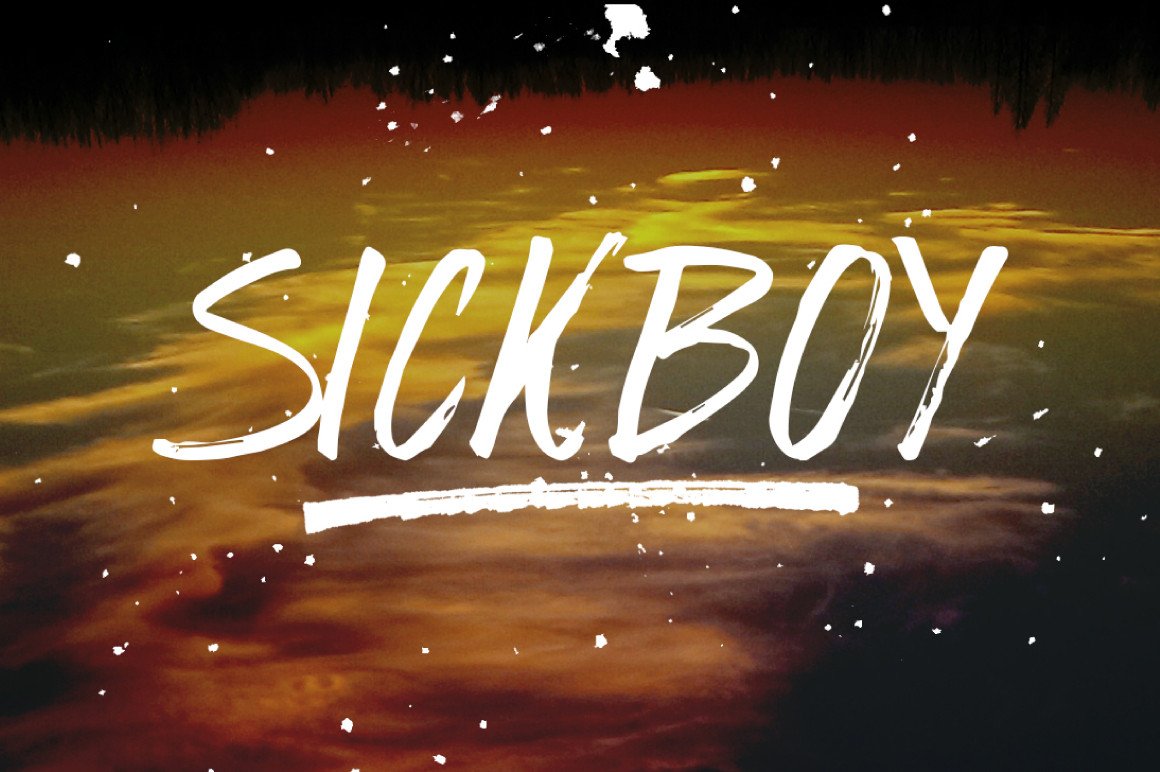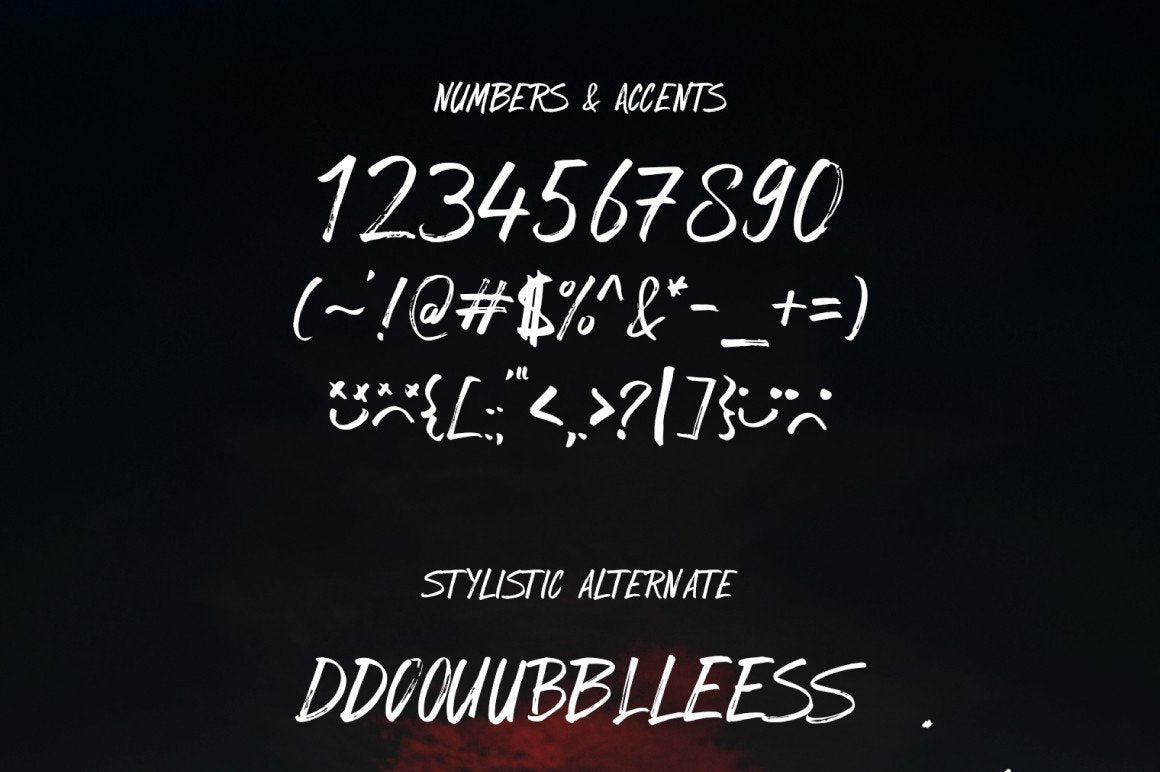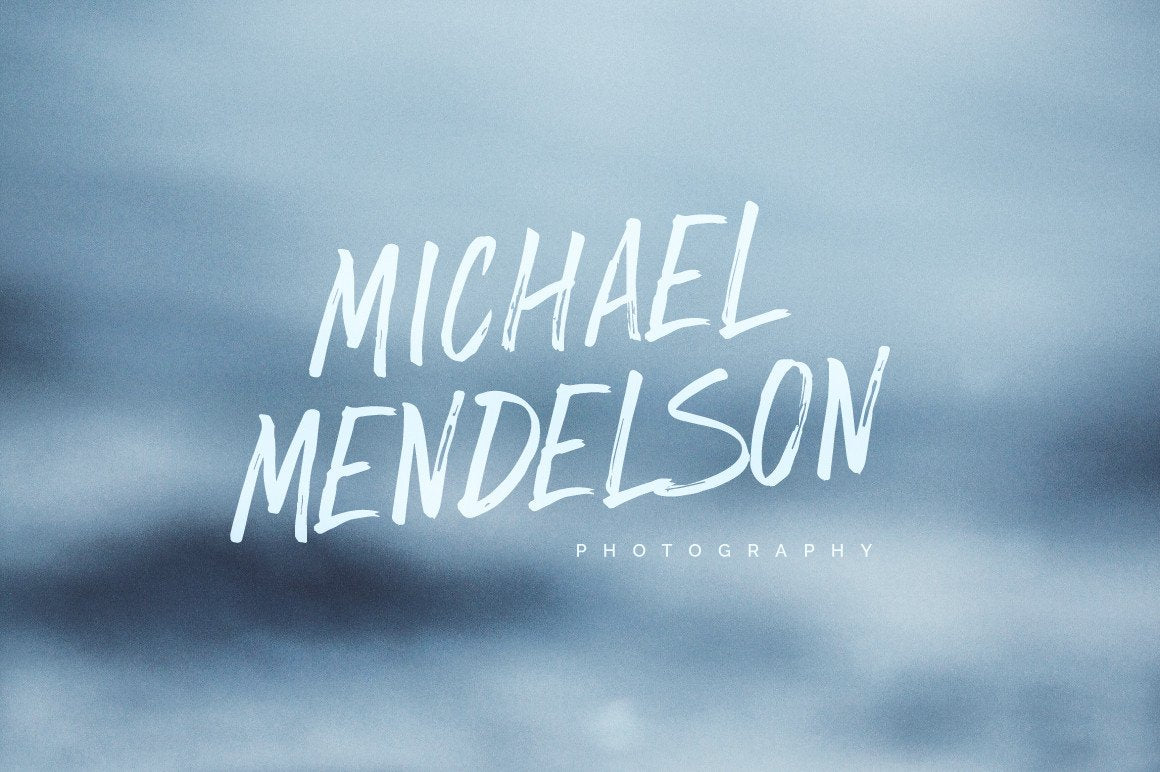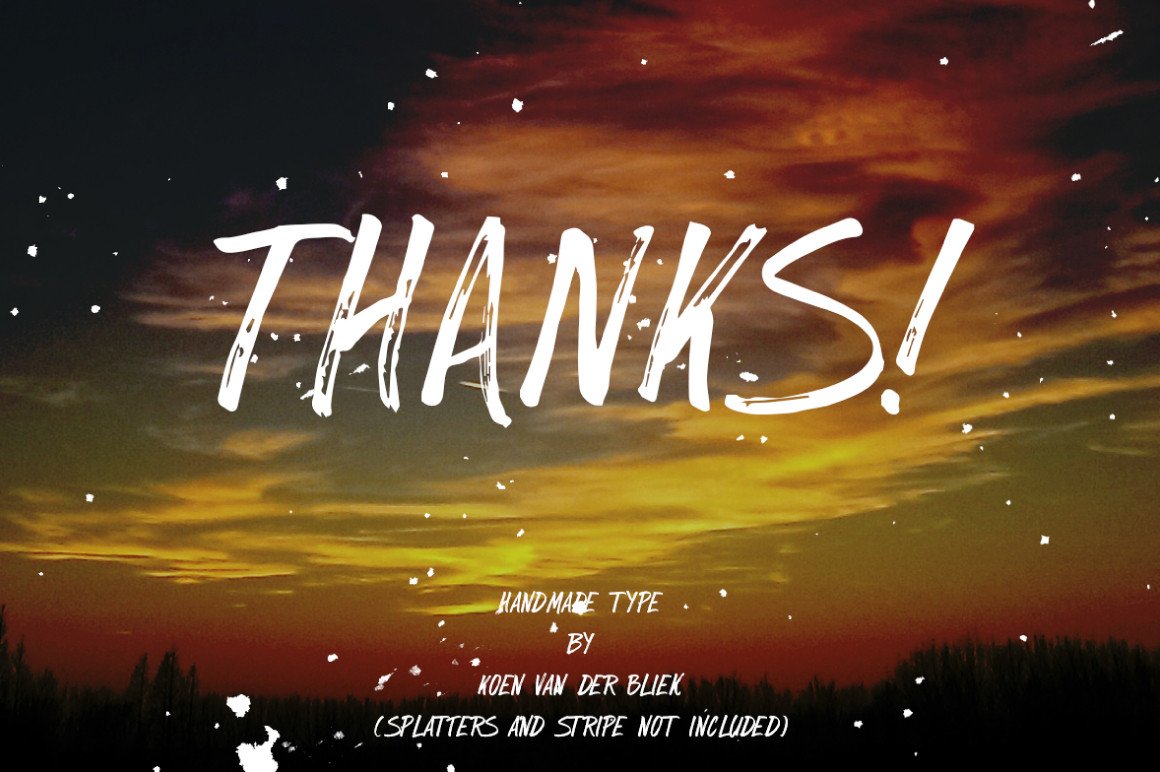
Sickboy - Free Handwritten Display Font
Sickboy is a handmade font, which comes in handy for everyone who looks for a fresh and nice look. This font has that truly authentic natural look which will make your designs pop! The font is made by the talented font creator Koen van der Bliek.